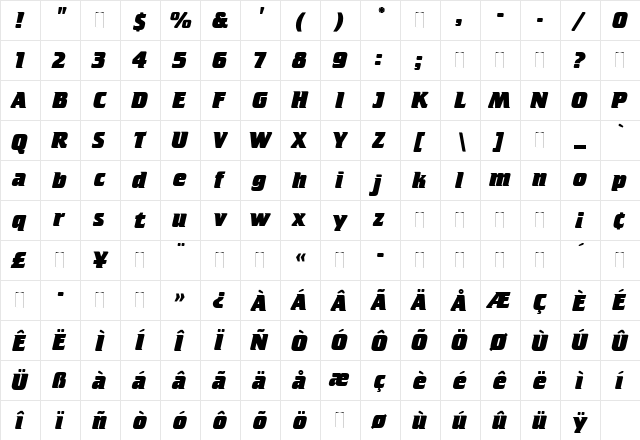
Crillee Extra Bold Italic Regular Font Preview
Design Context for Crillee Extra Bold Italic Typeface
Crillee Extra Bold Italic is a composed and adaptable typeface that performs quietly and consistently across a wide range of design contexts. The dynamic lean of this cut emphasises speed and emphasis in any layout. The heavy weight commands attention and anchors typographic hierarchies.
Pro Tip: Try Crillee Extra Bold Italic for annotation and caption copy alongside an upright companion — the contrast in angle creates a dynamic but ordered typographic system.